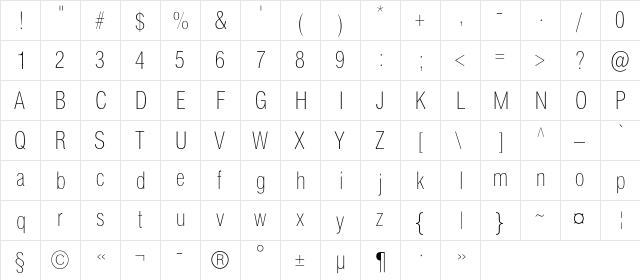
HeliosCondThin Regular Font Preview
Design Context for HeliosCondThin Typeface
HeliosCondThin takes a measured approach to typography — its balanced proportions and neutral character make it a reliable workhorse for both digital and print work. The delicate stroke weight brings airiness and refinement to layouts. The condensed width makes it efficient for tight spaces without sacrificing legibility.